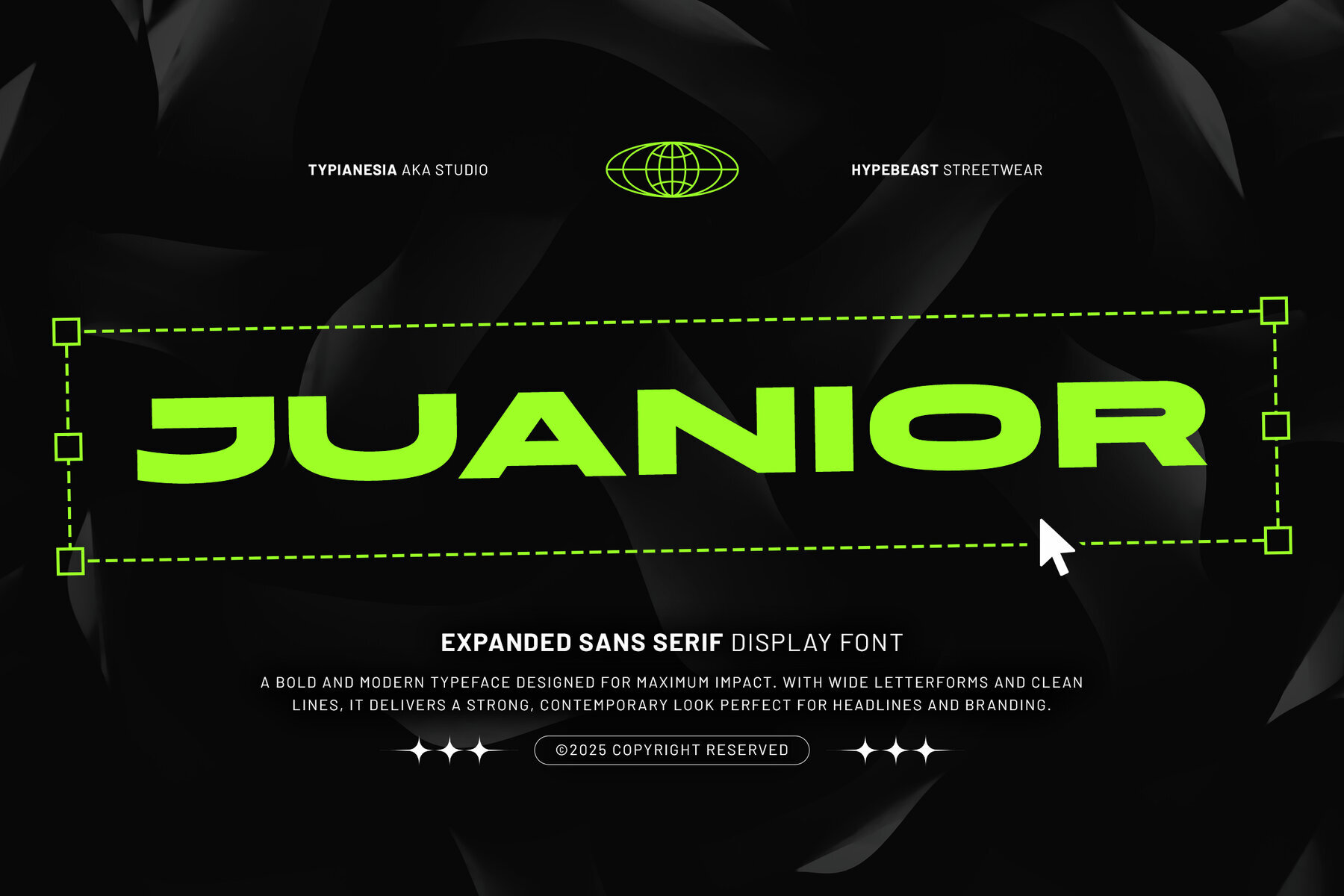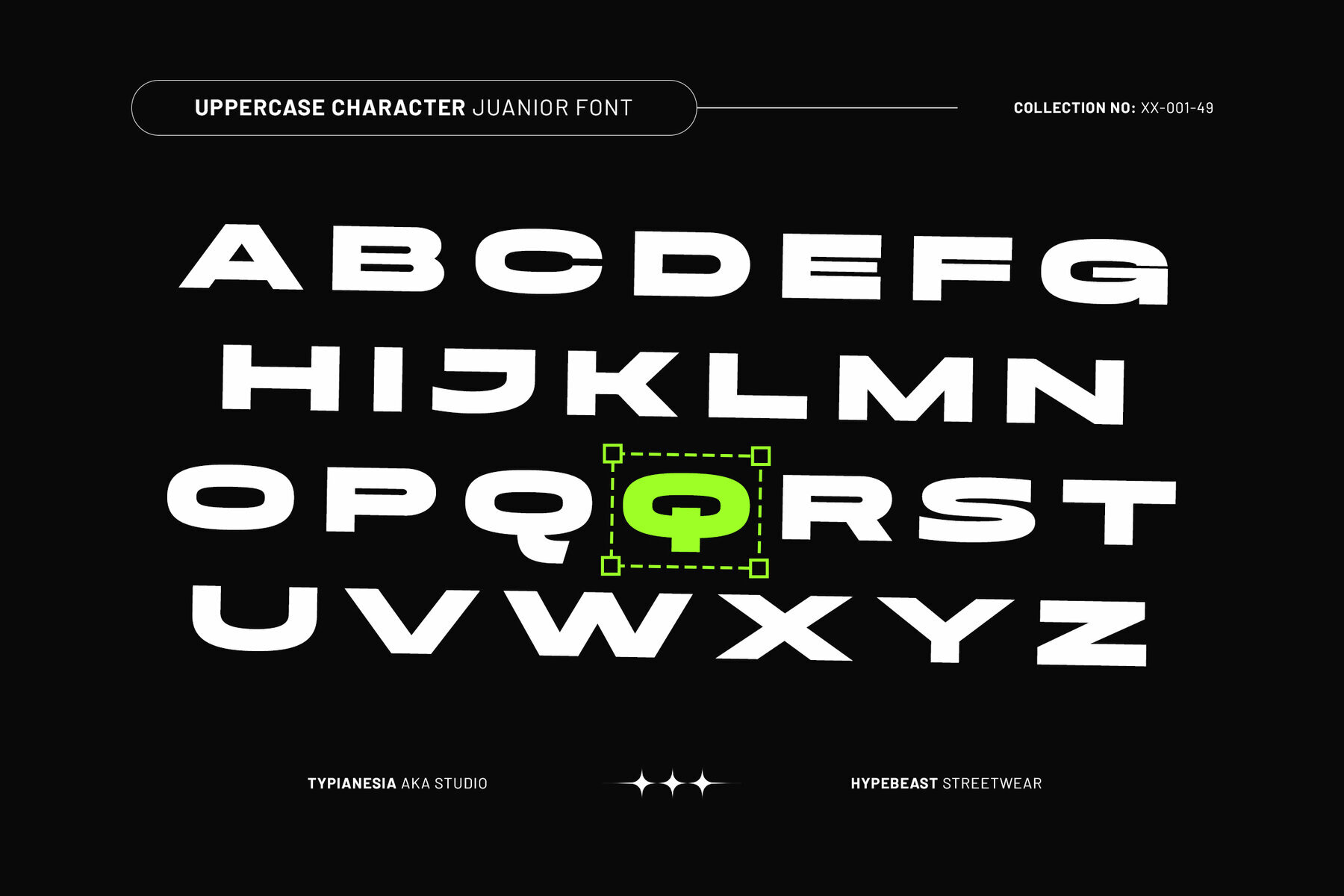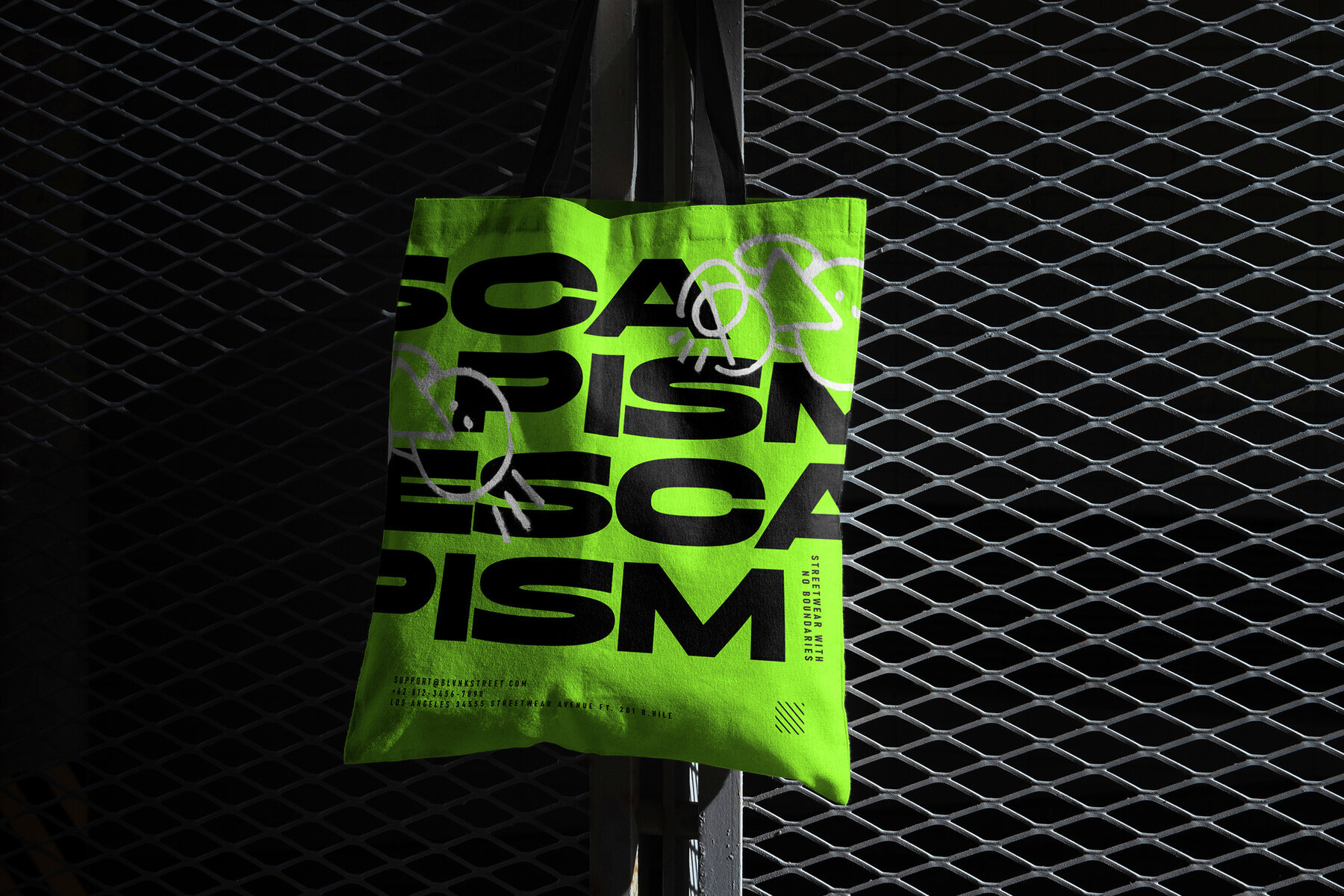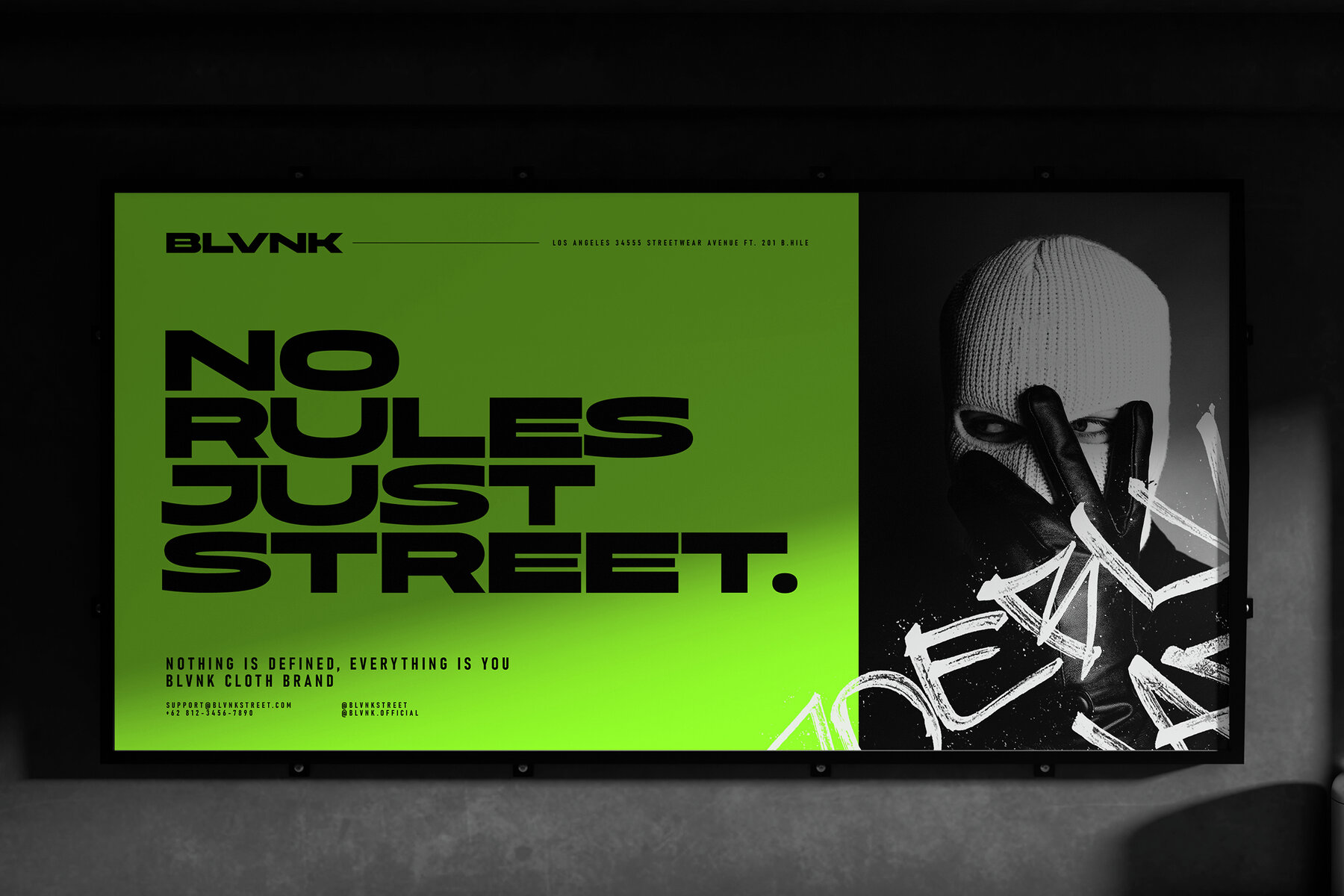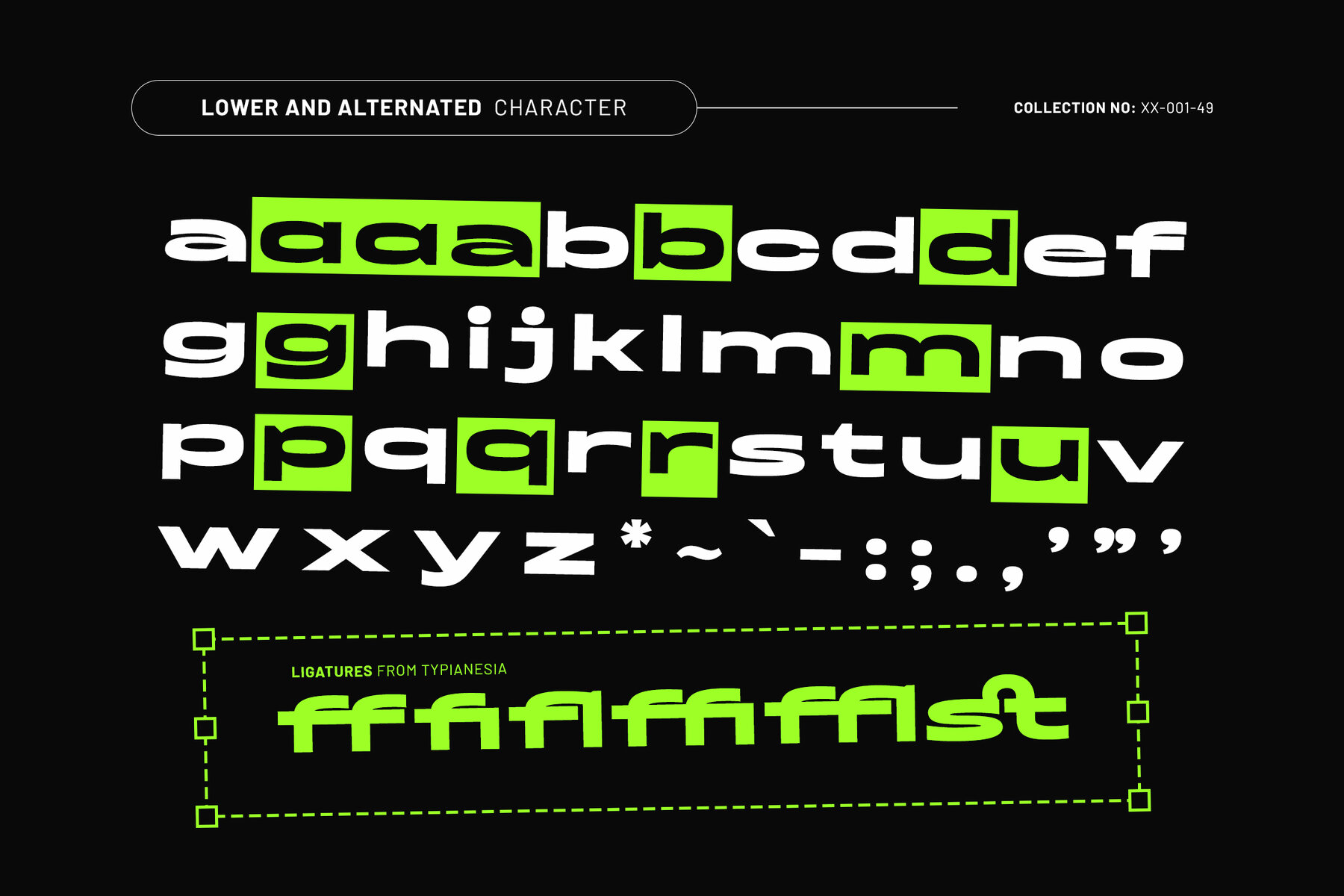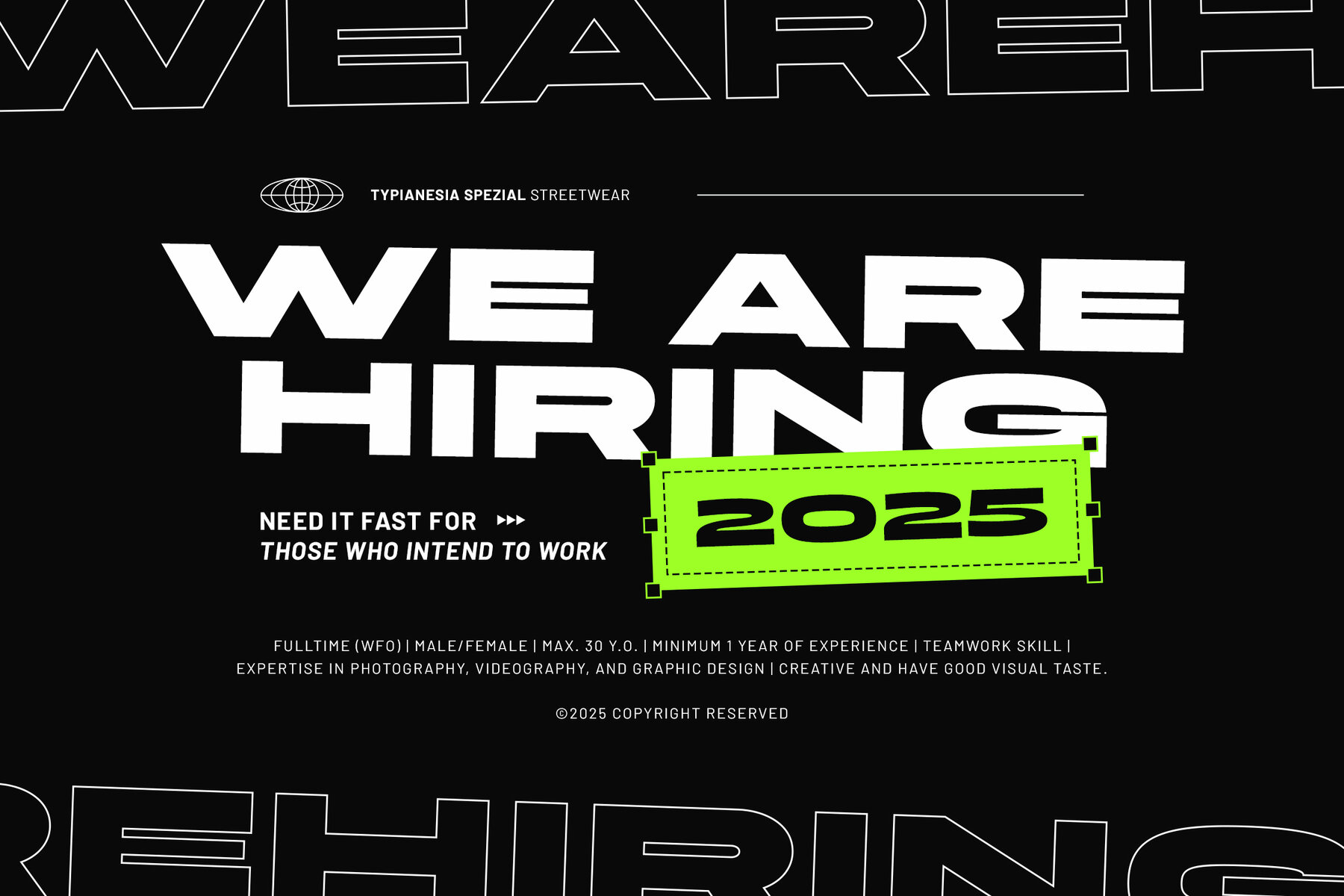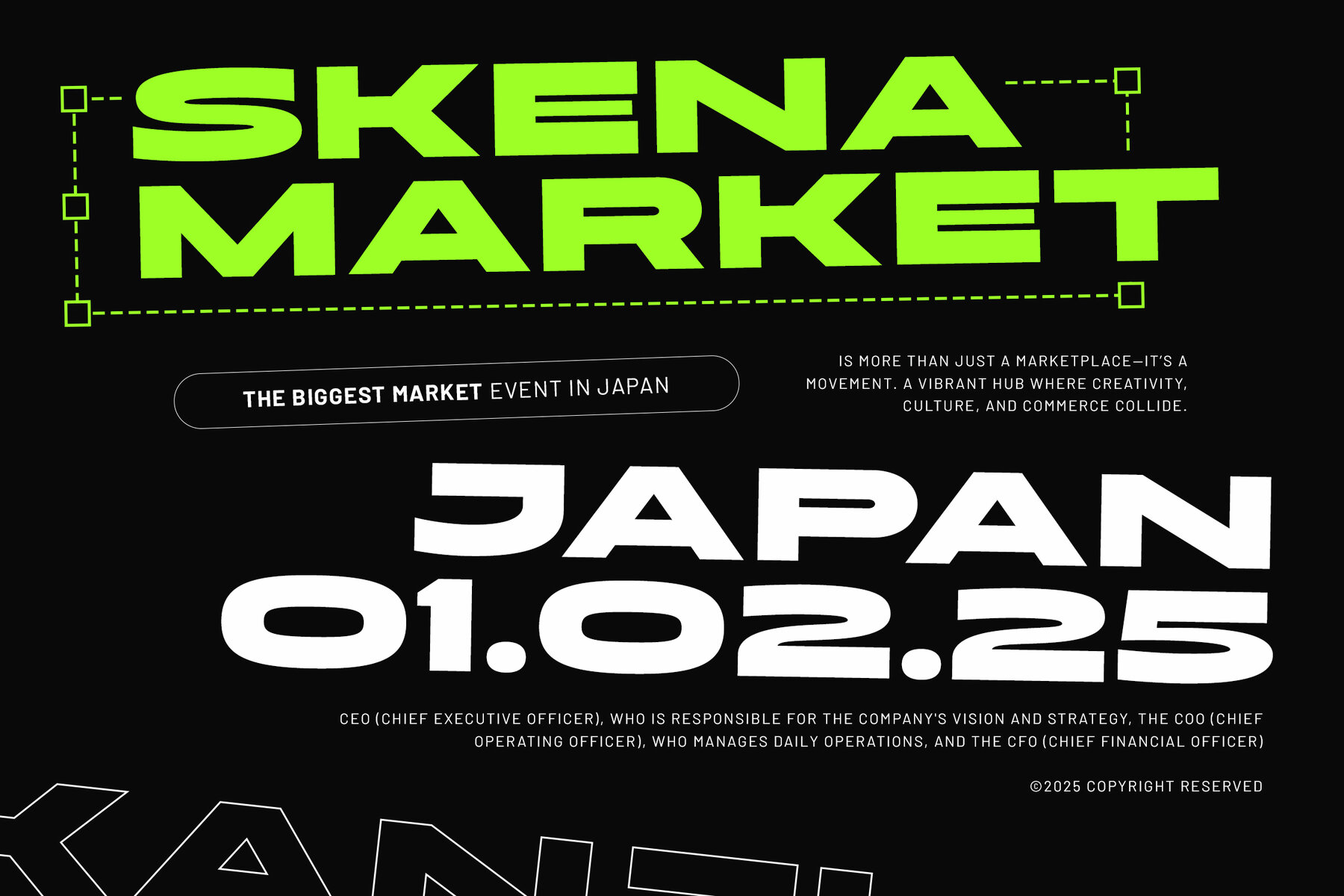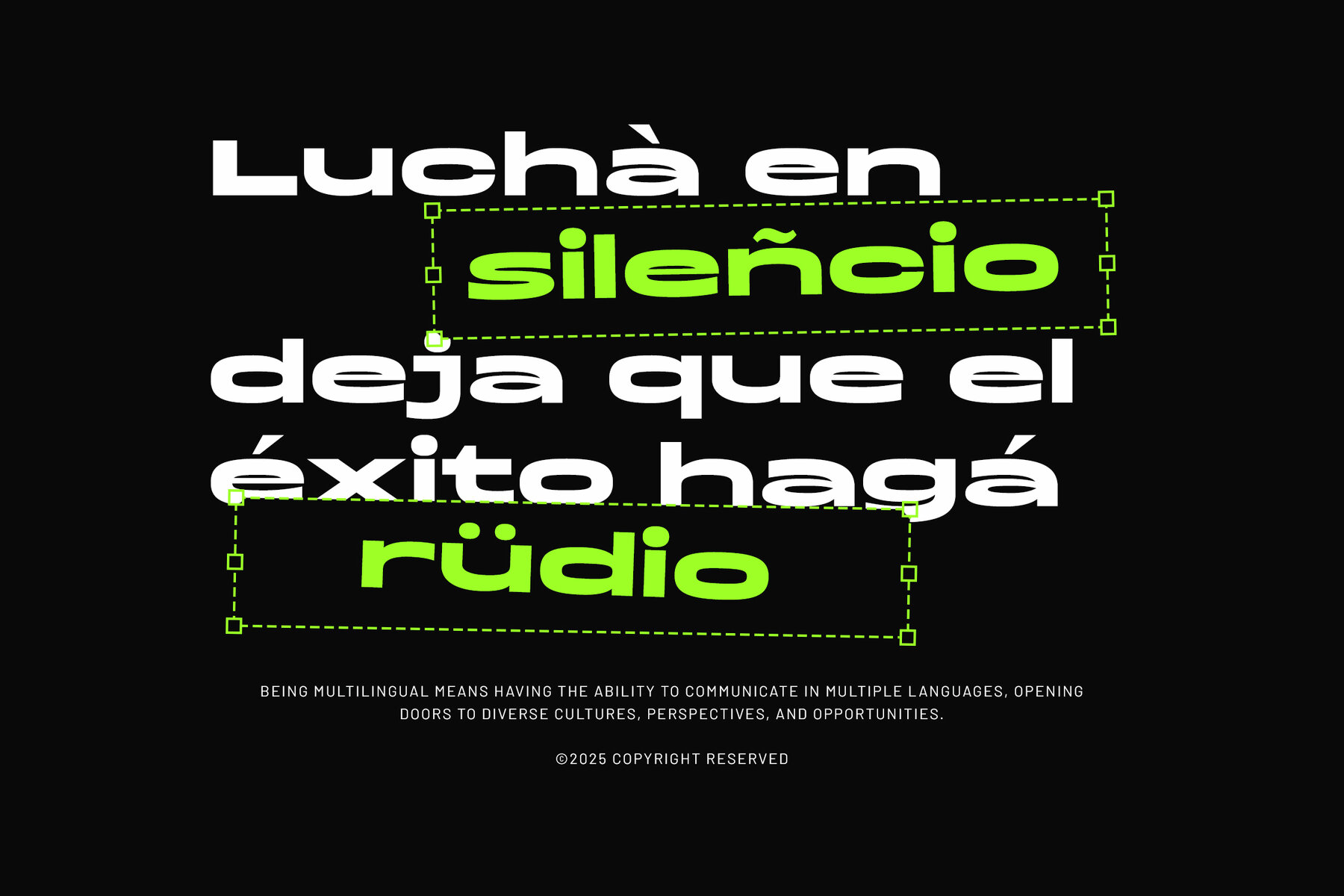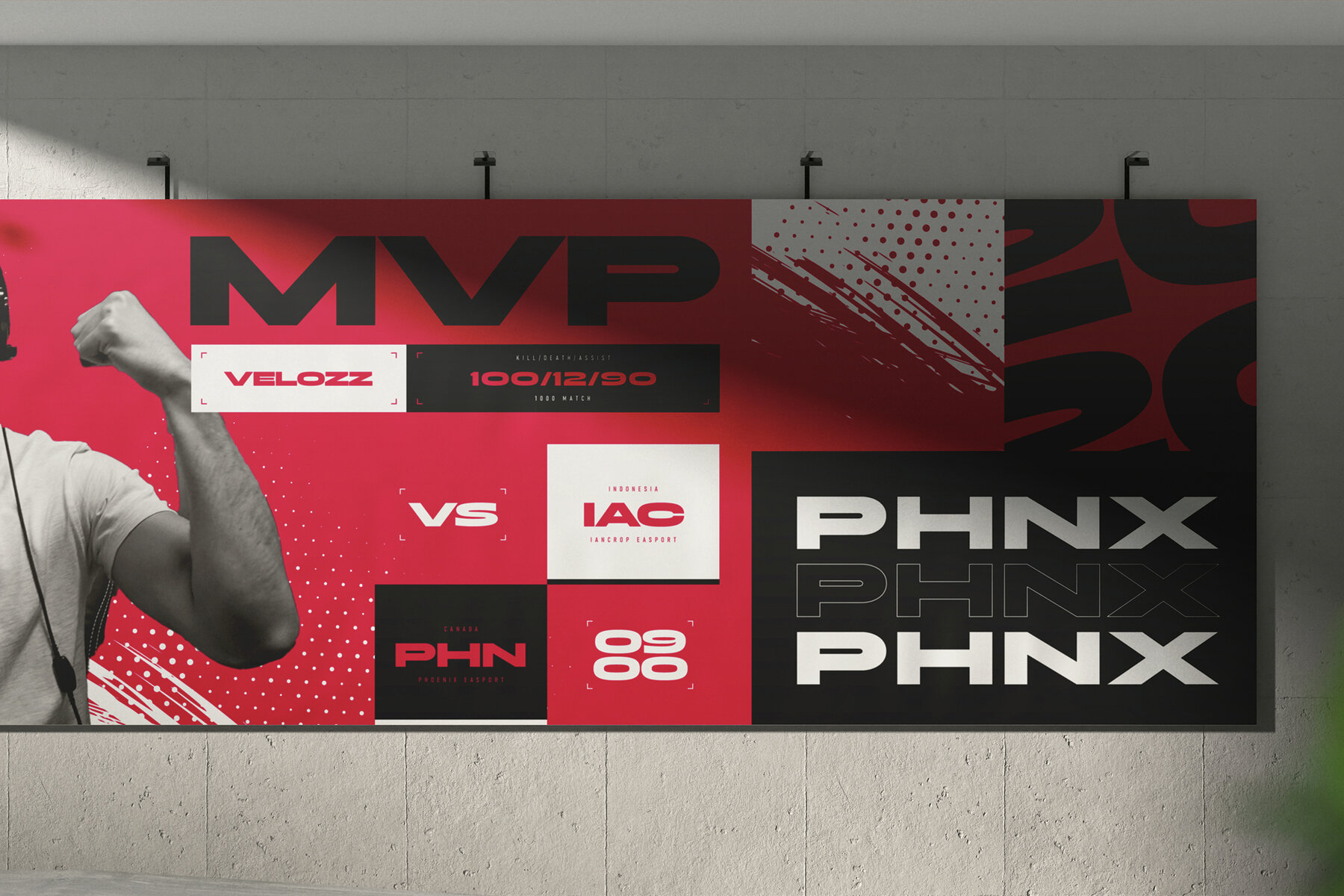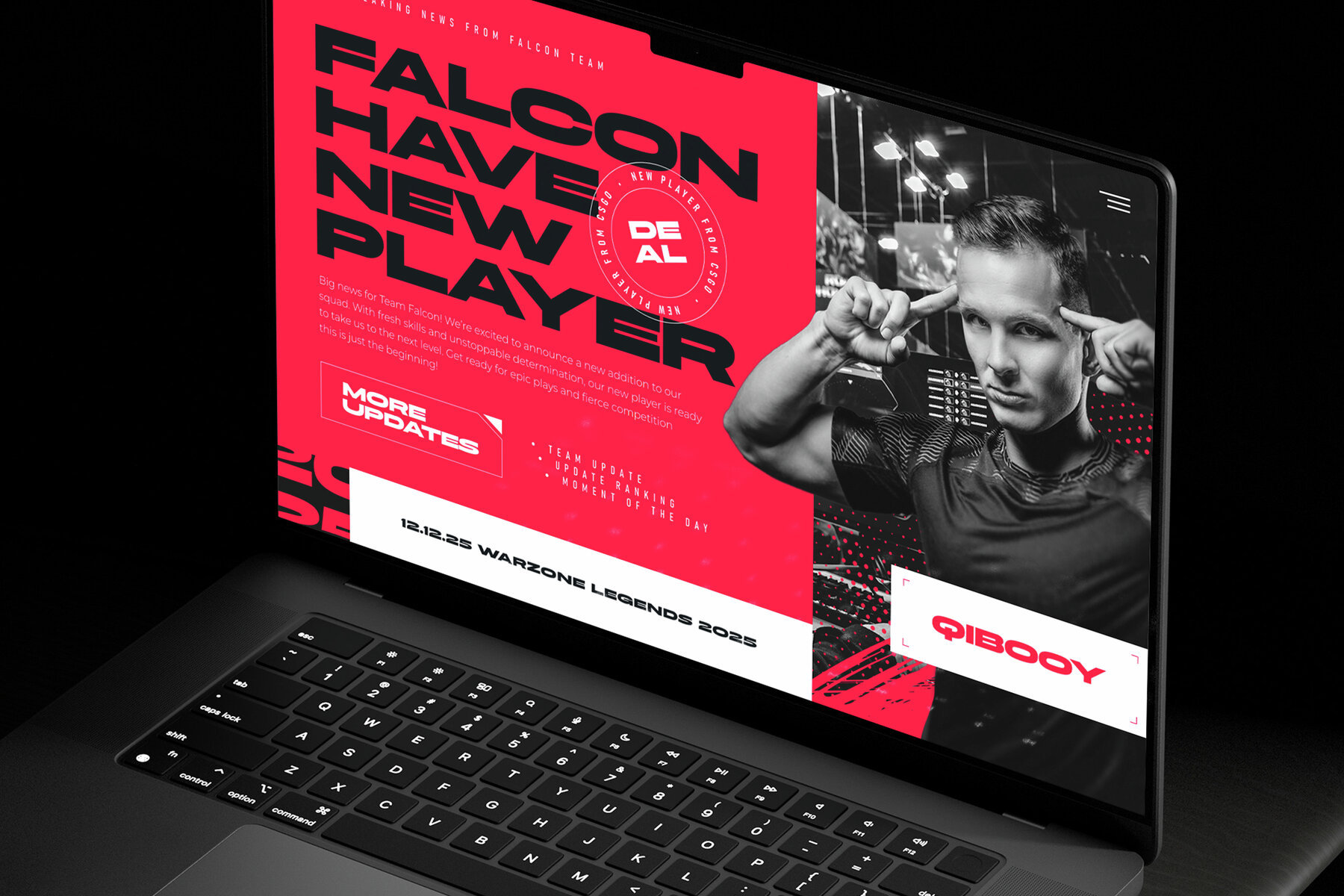
Juanior Font
Juanior Regular
Juanior is an Expanded Sans Serif Display typeface distinguished by its strong and wide letterforms, ideal for creating powerful and attention-grabbing typography. This bold and modern digital font is particularly suited for applications in branding, posters, technology-based projects, sci-fi themes, game design, sports, headlines, packaging, advertising, website headers, and futuristic editorial layouts. Juanior's bold, futuristic appeal ensures your work stands out and makes a lasting impact.
The font includes uppercase and lowercase letters, punctuation, numerals, ligatures, and alternates, offering designers a flexible tool for creative expression. Moreover, its support for multiple languages enhances its versatility, making it suitable for a wide range of global projects. Juanior is designed with graphic designers, branding experts, game developers, and creative professionals in mind. Its high readability and strong visual presence make it a top choice for dynamic and innovative design endeavors.